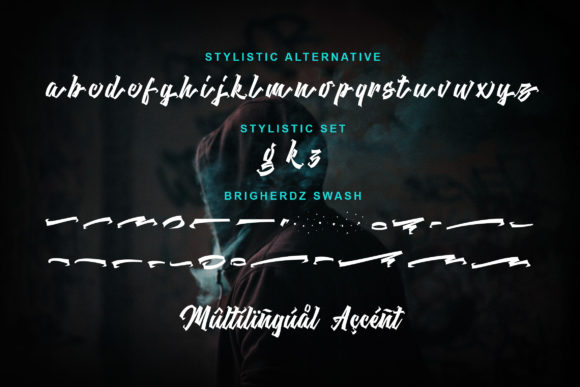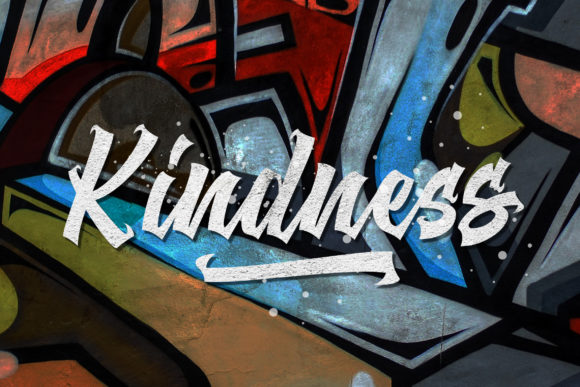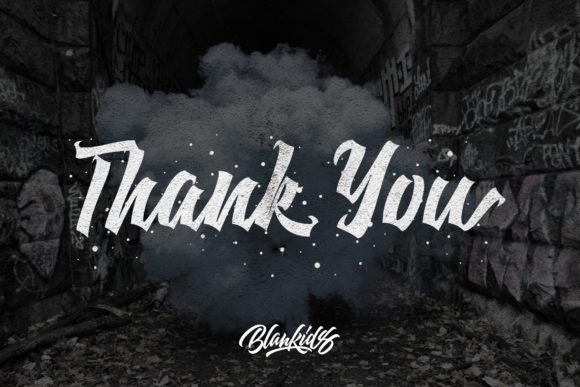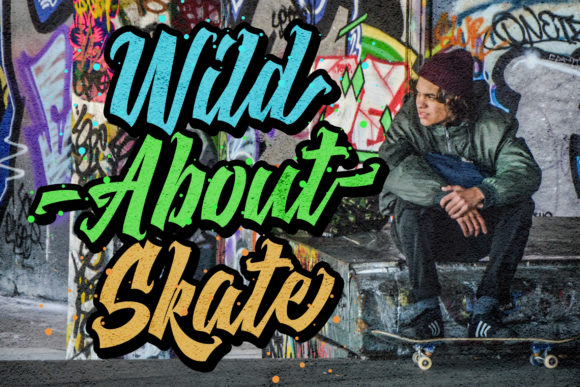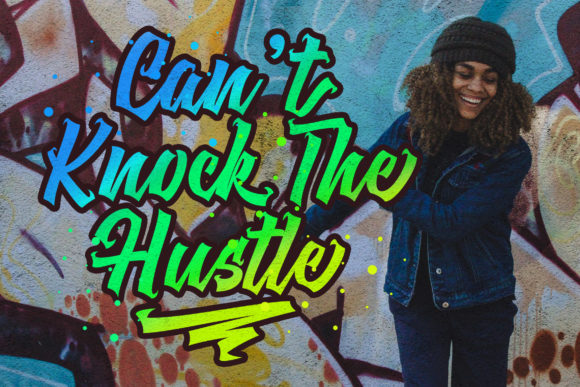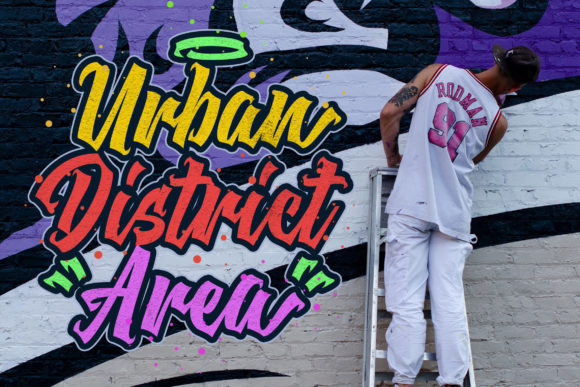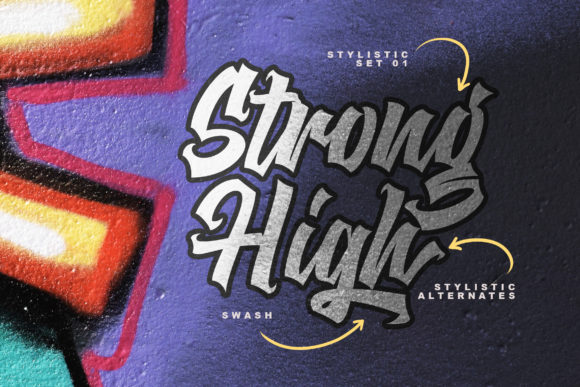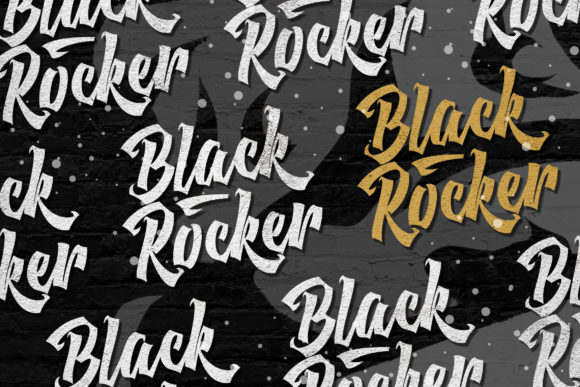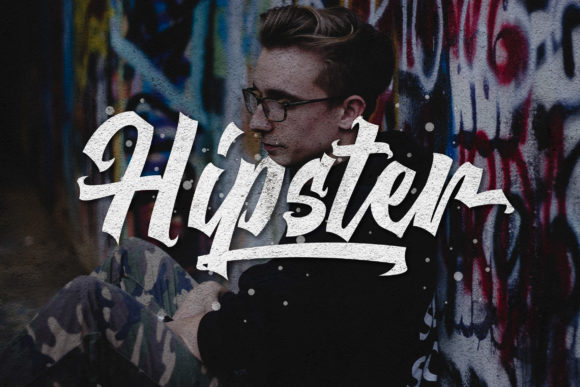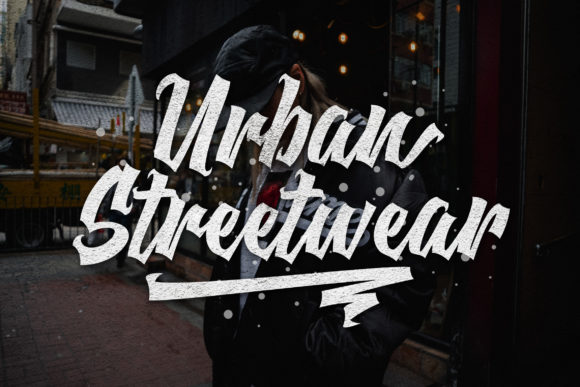
HomeScript FontsBrigherdz Font Script Fonts Brigherdz Font FacebookXPinterestWhatsApp Brigherdz Font Poster 2 Brigherdz Font Poster 3 Brigherdz Font Poster 4 Brigherdz Font Poster 5 Brigherdz Font Poster 6 Brigherdz Font Poster 7 Brigherdz Font Poster 8 Brigherdz Font Poster 9 Brigherdz Font Poster 10 Brigherdz Font Poster 11 Brigherdz Font Poster 12 About Brigherdz Font Brigherdz is a fun and bright handwritten font with a bold twist. Get inspired by its contemporary charm. DOWNLOAD ON CREATIVE FABRICAThis font is sold and delivered by Creative Fabrica. Font Canyon may earn a commission if you buy through this link. People also explored Orleons Font Sweet Toast Font Grindstone Font Colorful Dream Distorted Font Gakyo Font Happy Wedding Font Reading Font Aulabec Font Ovaline Font 381 0 TagsBrigherdz Font Previous articleAlexi FontNext articleGellato Rush Font LEAVE A REPLY Cancel reply Comment: Please enter your comment! Name:* Please enter your name here Email:* You have entered an incorrect email address! Please enter your email address here Website: Save my name, email, and website in this browser for the next time I comment. Personal Use Free Dimensional Look71 Personal Use Free Read more about this font Mueband Personal Use Free Read more about this font Barokah Personal Use Free Read more about this font Lovetle Personal Use Free Read more about this font BLOG Using Fonts in Digital Marketing: Tips to Strengthen Your Brand Identity In the realm of digital marketing, every visual element plays a crucial role in shaping a brand's identity, and fonts are no exception. The... To increase your work productivity, choose the most readable fonts. Free vs Paid Fonts: Why Investing in Premium Fonts Is Worth It Best Fonts for YouTube Videos: Make Your Thumbnails Stand Out